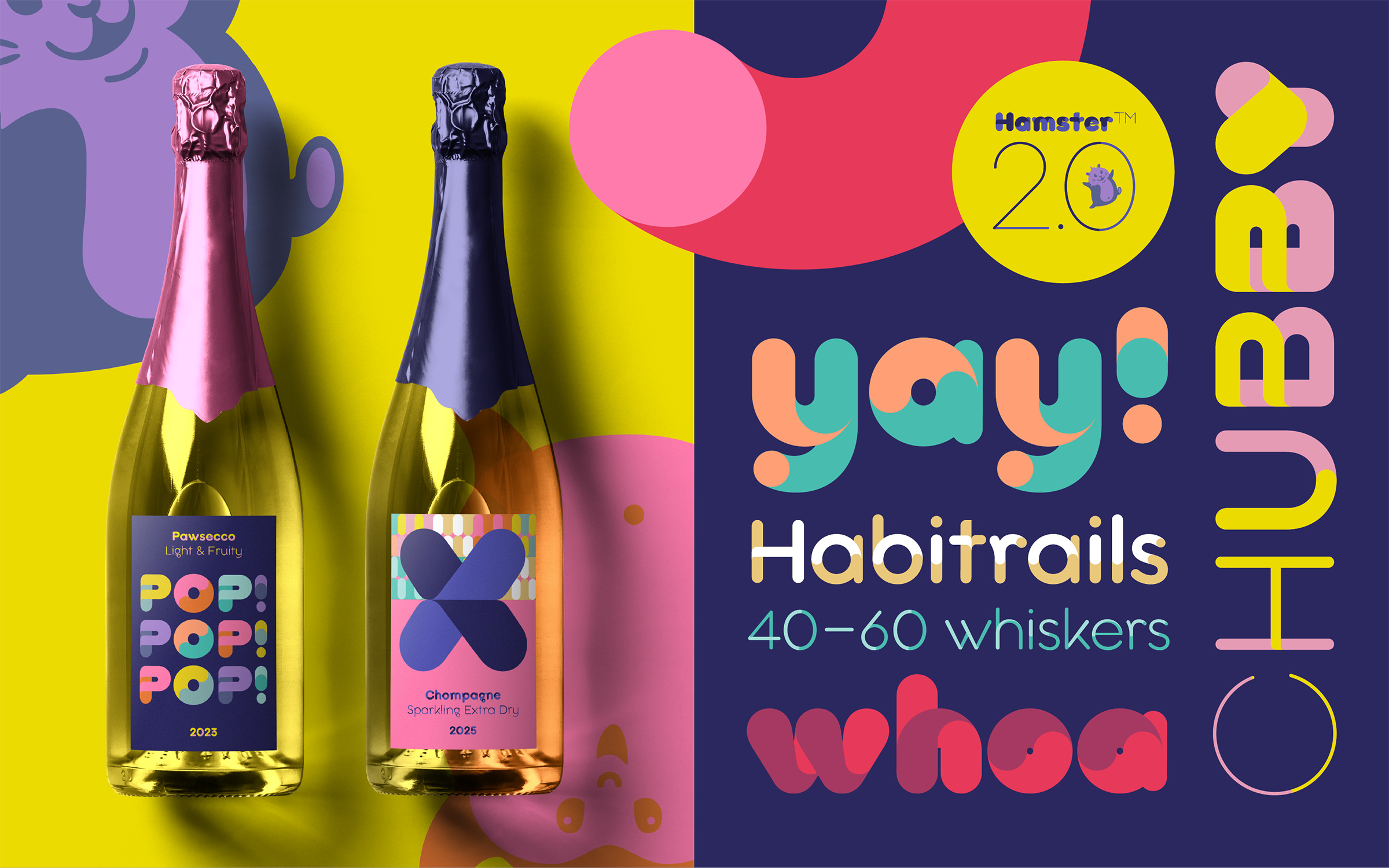
We’re overjoyed to introduce Hamster 2.0, our cutest and most colorful font!
The Fontwerk Family is expanding! We’re overjoyed to introduce Hamster 2.0, our cutest and most colorful font! Also in this month’s edition, we share a special use case for Pangea, there’s a top event tip with our very own master of calligraphy, Andreas Frohloff, and we’ve got some sad news about a beloved Berliner type institution. |
| | The brand new colors Grape Soda, Barbecue, Raspberry, Indigo and Burgundy bring the total number of variable fonts available to 15. | |
| | Warning: May contain cute fontsOnce we have welcomed a typeface into our family, we nurture and care for it lovingly. And just like in real life, sooner or later this deep affection leads to the family growing. Most recently, our cutest font brought us this joy: Hamster has had offspring in the form of lowercase letters and five new color variants. Joe Stitzlein’s ‘colorful playground for designers’ was our first color font two and a half years ago, which also earned us our first TDC Award (Certificate of Typographic Excellence) thanks to SNASK’s unique release campaign. The rounded ends of Hamster and the bold font styles are reminiscent of the cute rodents’ chubby cheeks and this appears even more so in the newly designed lowercase letters. The brand new colors Grape Soda, Barbecue, Raspberry, Indigo and Burgundy are darker than the eight familiar combinations and are more suitable for light backgrounds. They are also designed to conform and to pass the WCAG contrast standards (W3C’s Web Content Accessibility Guidelines). This brings the total number of fonts available to 15 variable and 90 static fonts. Existing customers who have purchased the complete package can download them free of charge through their customer account! For everyone else, the collection is available for less than the price of four individual fonts. This eliminates the need to decide on the right color and makes it worthwhile to simply fill your paint palette with the maximum selection. | |